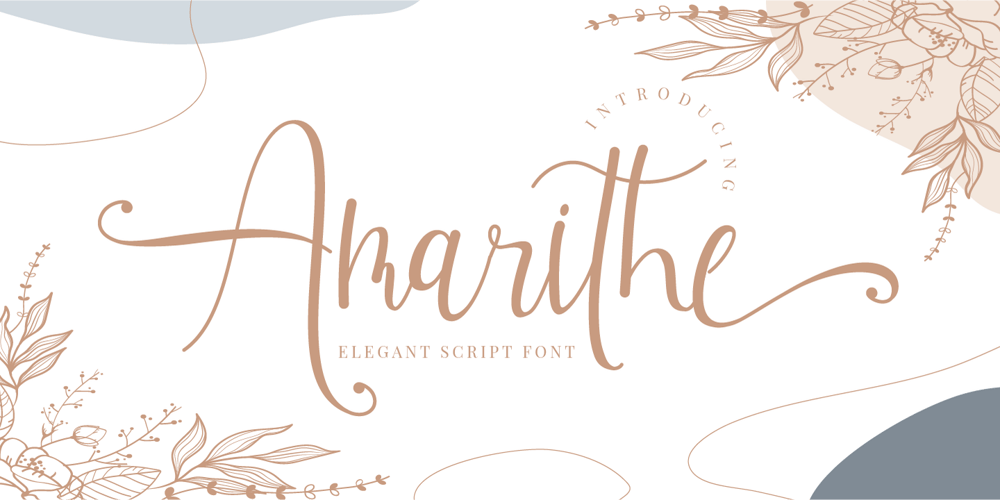
Amarithe Font Family was designed by Putra Novembria Candra Kusuma and published by Putracetol. Amarithe contains 1 styles and family package options. Amirithe is a beautiful modern calligraphy wedding font. This font is feminime, elegant, messy and modern.Amirithe perfect for wedding event, anniversary, birthday,greeting cards, logotype, branding, wedding invite and card, elegant logo, poster, packaging, stationery, website, and any other projects requiring a handwritten and luxurious touch. Come with open type feature with a lot of alternates, its help you to make great lettering.This font is also support multi language.